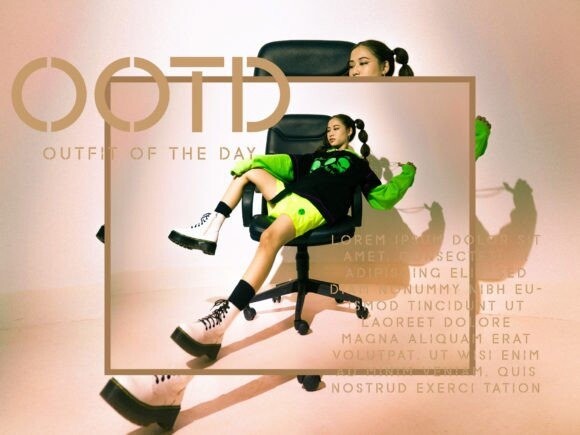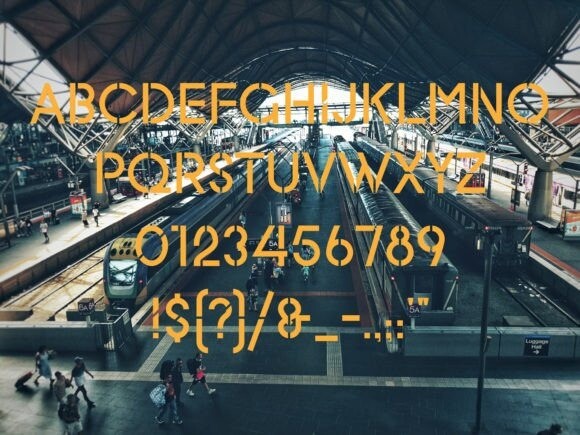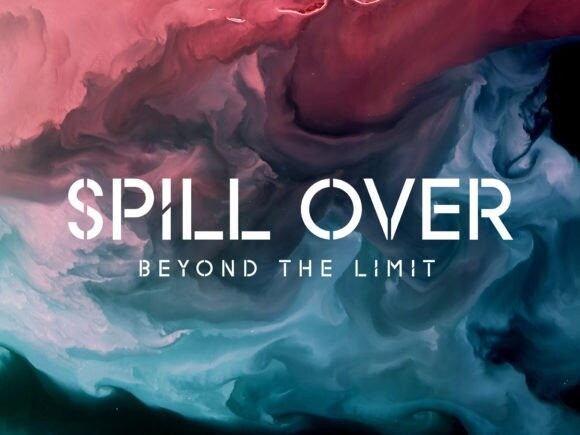
Himalaya Font
Introducing **Himalaya**, a simple and modern sans serif font.
So perfect for you who needs a typeface for logo designs, magazine, social media, brochure, and many more.